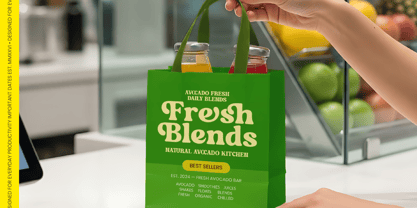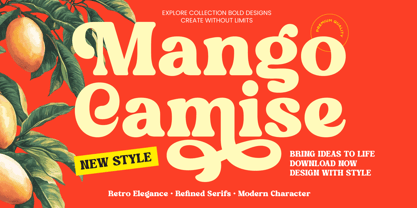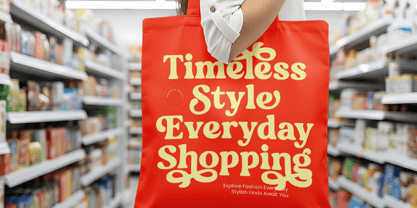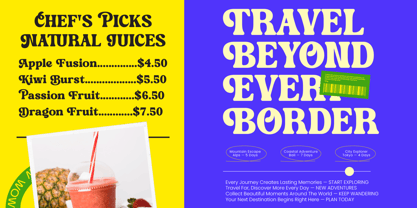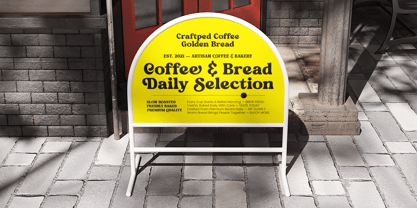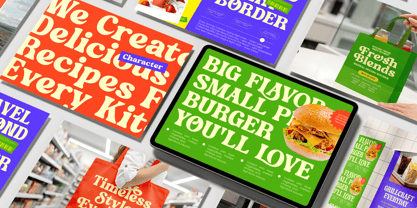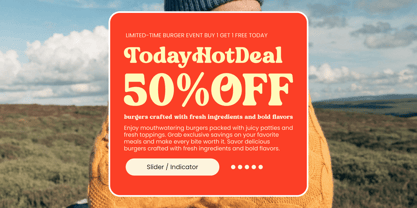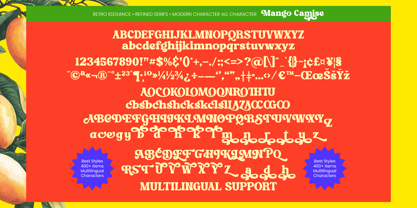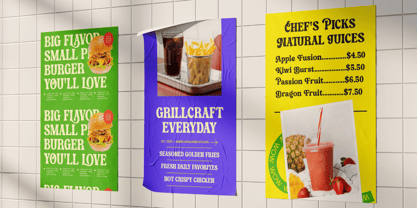
Mango Camise
by Timelesstype Studio
The Mango Camise Font Family was designed by Heru Utama Putra and published by Timelesstype Studio. Mango Camise contains 2 styles and family package options. More about this family
Elevate your visual identity with a font that perfectly balances vintage charm and contemporary flair. Mango Camise - Modern Retro Serif is a masterpiece of modern retro design, featuring bold curves and refined serifs that capture the essence of high-end aesthetics. Its high-contrast strokes and organic shapes provide a sense of warmth and sophistication, making it an essential tool for designers seeking a unique typographic personality.